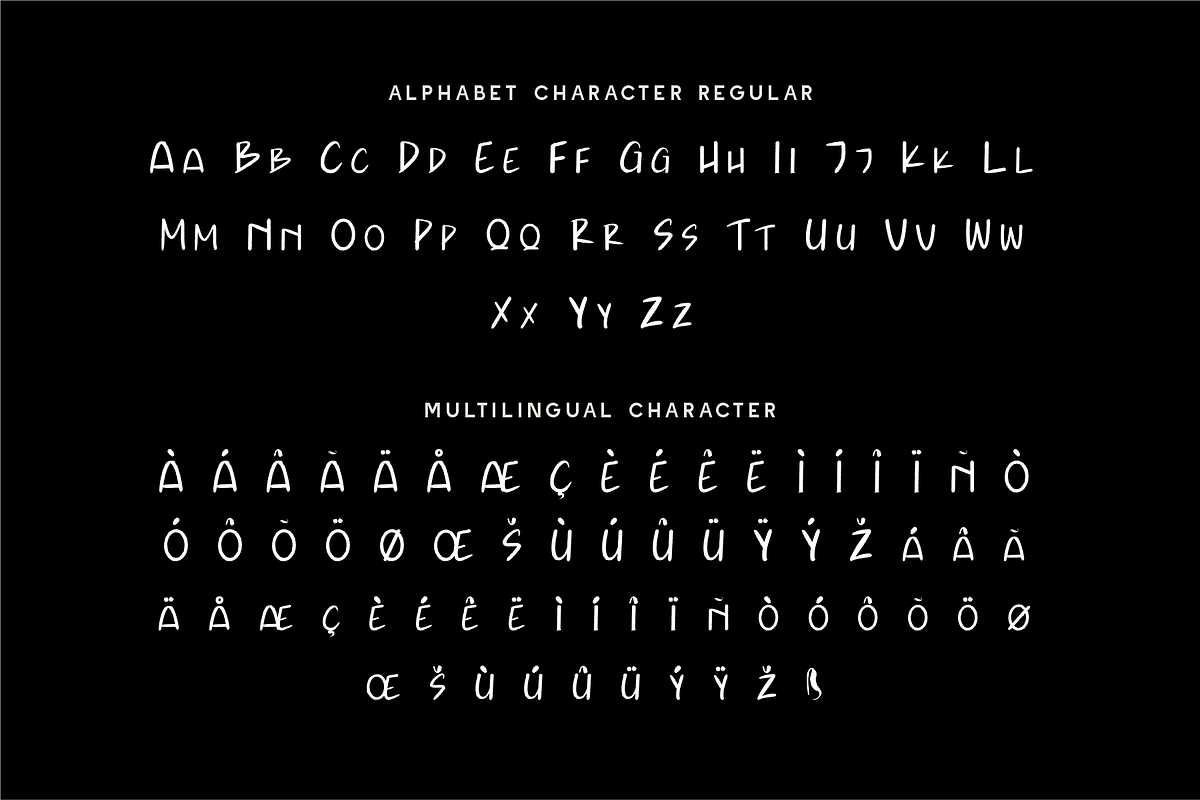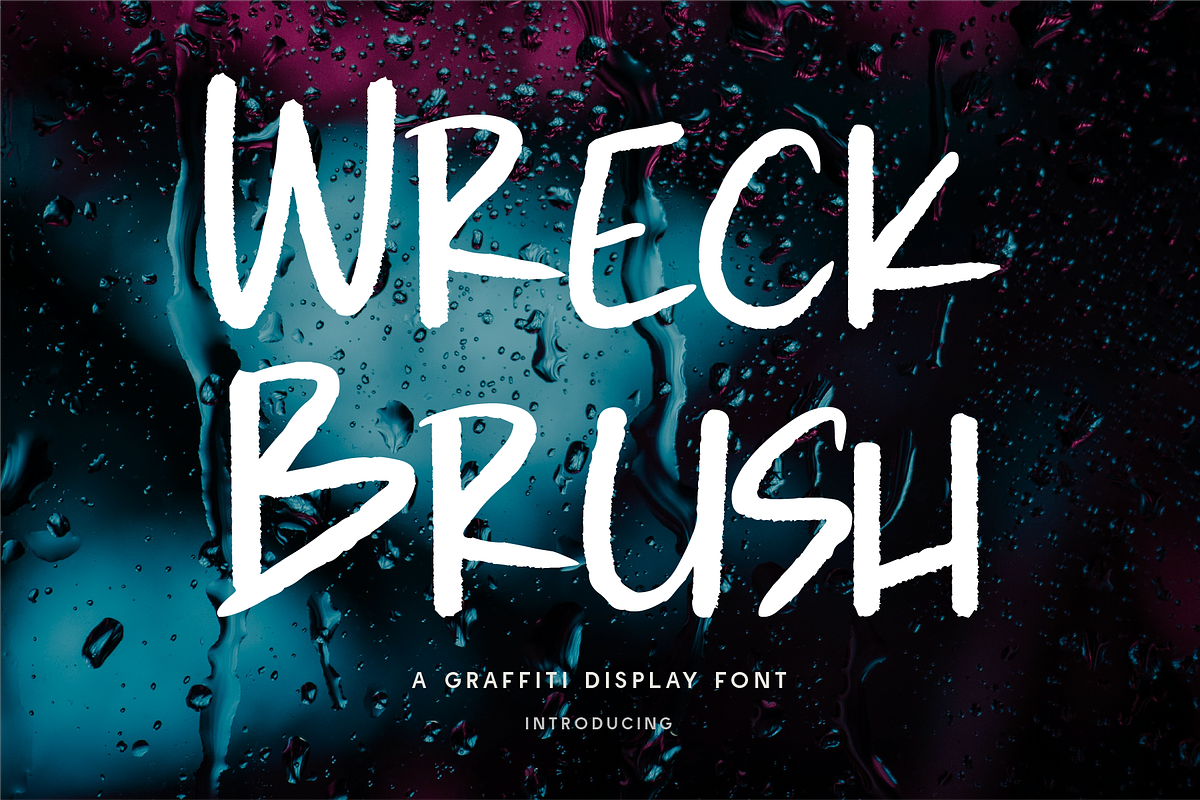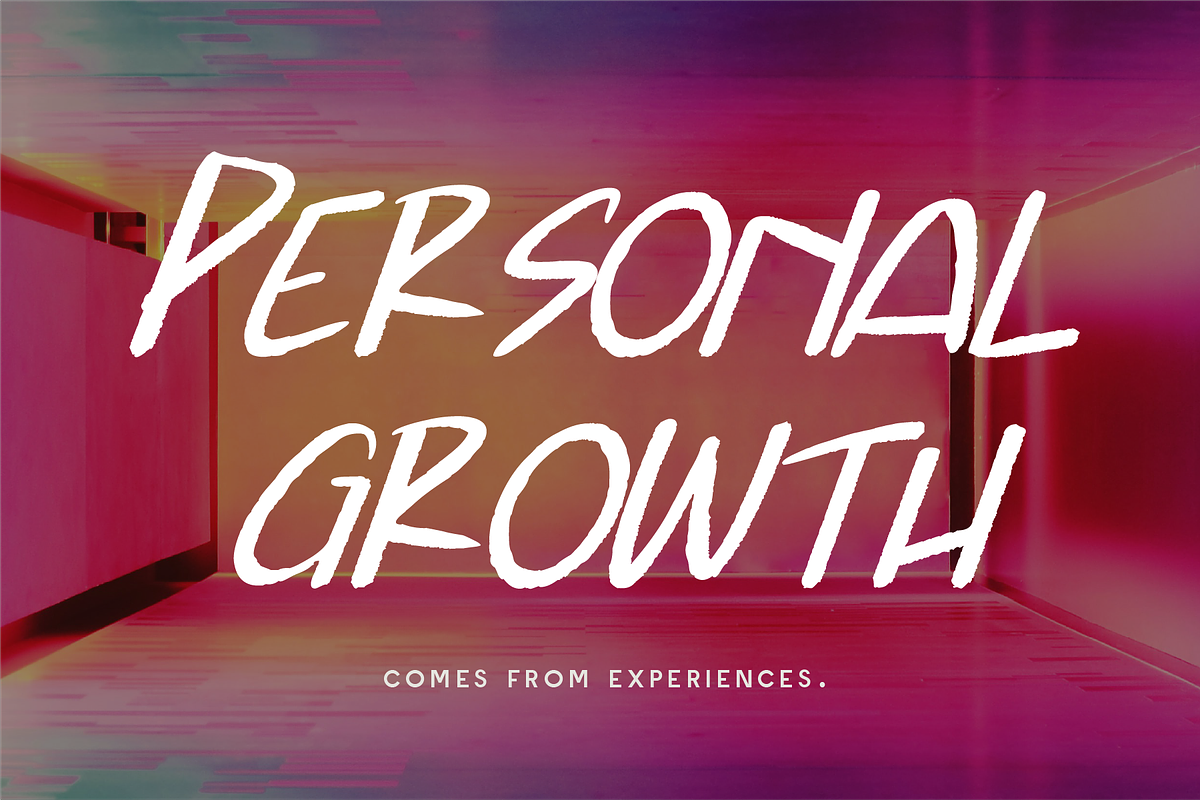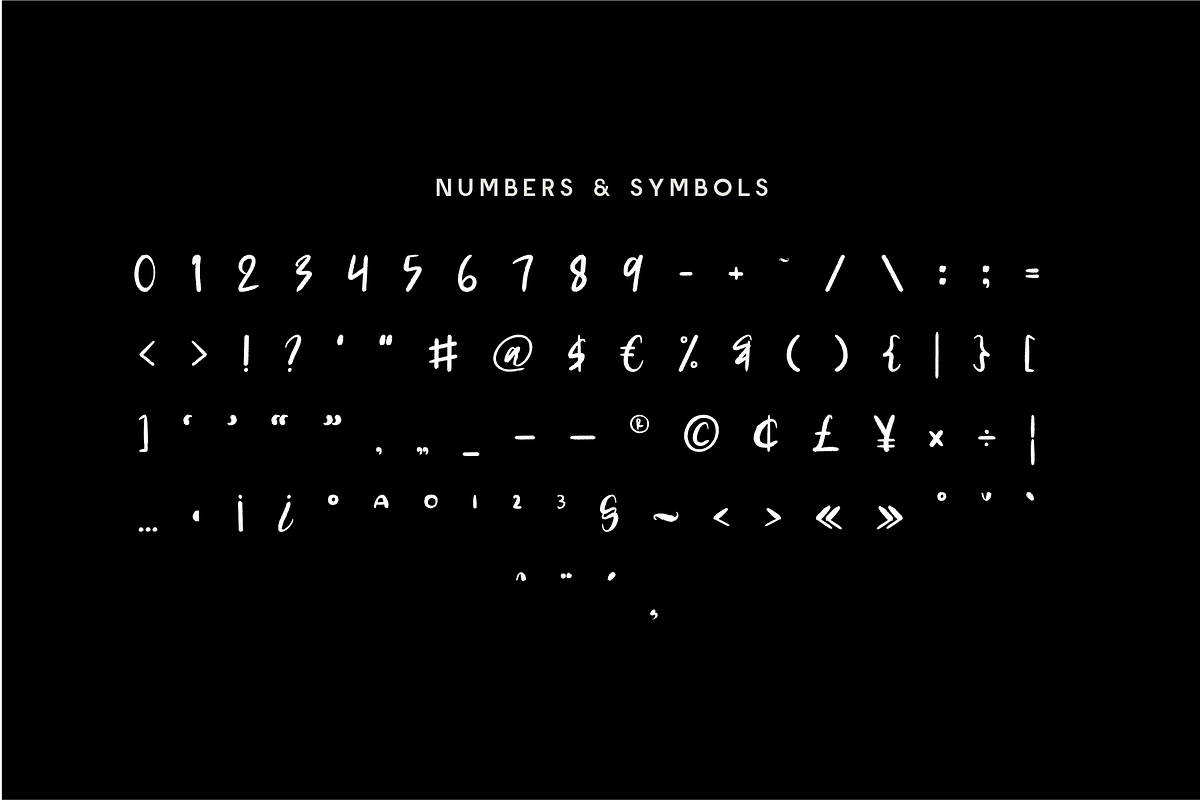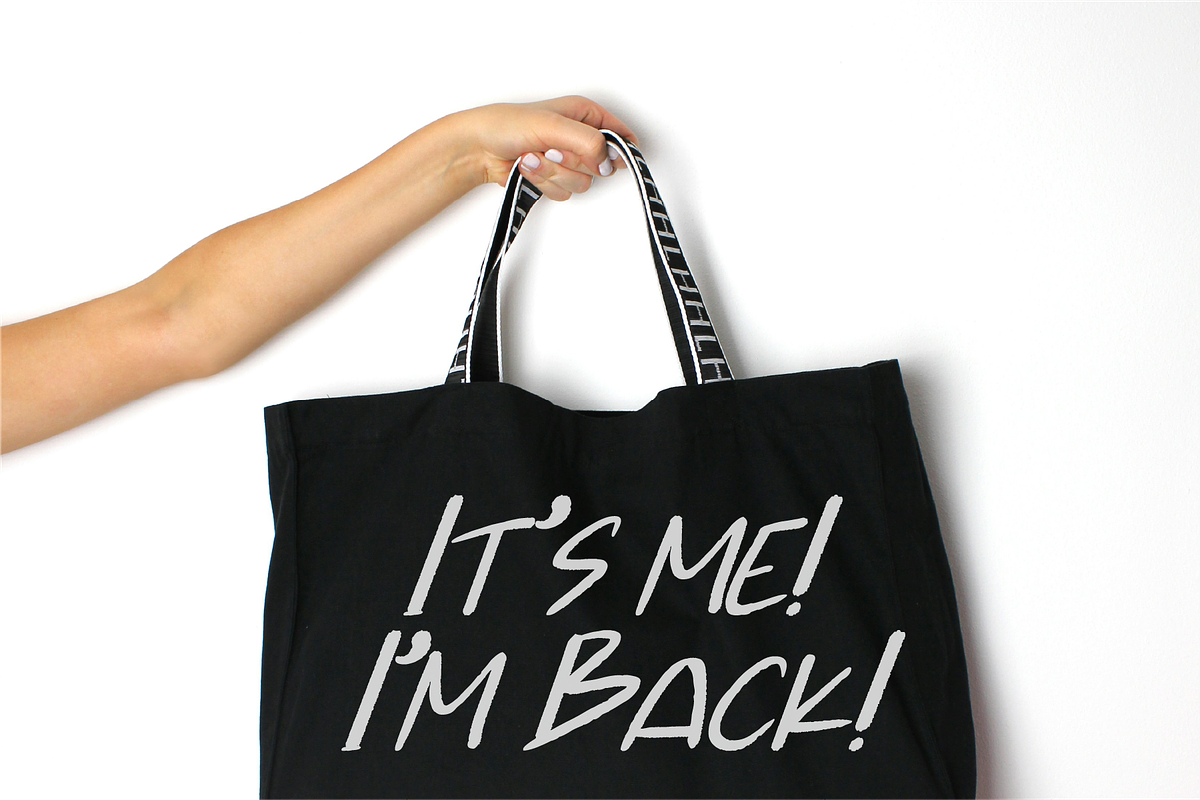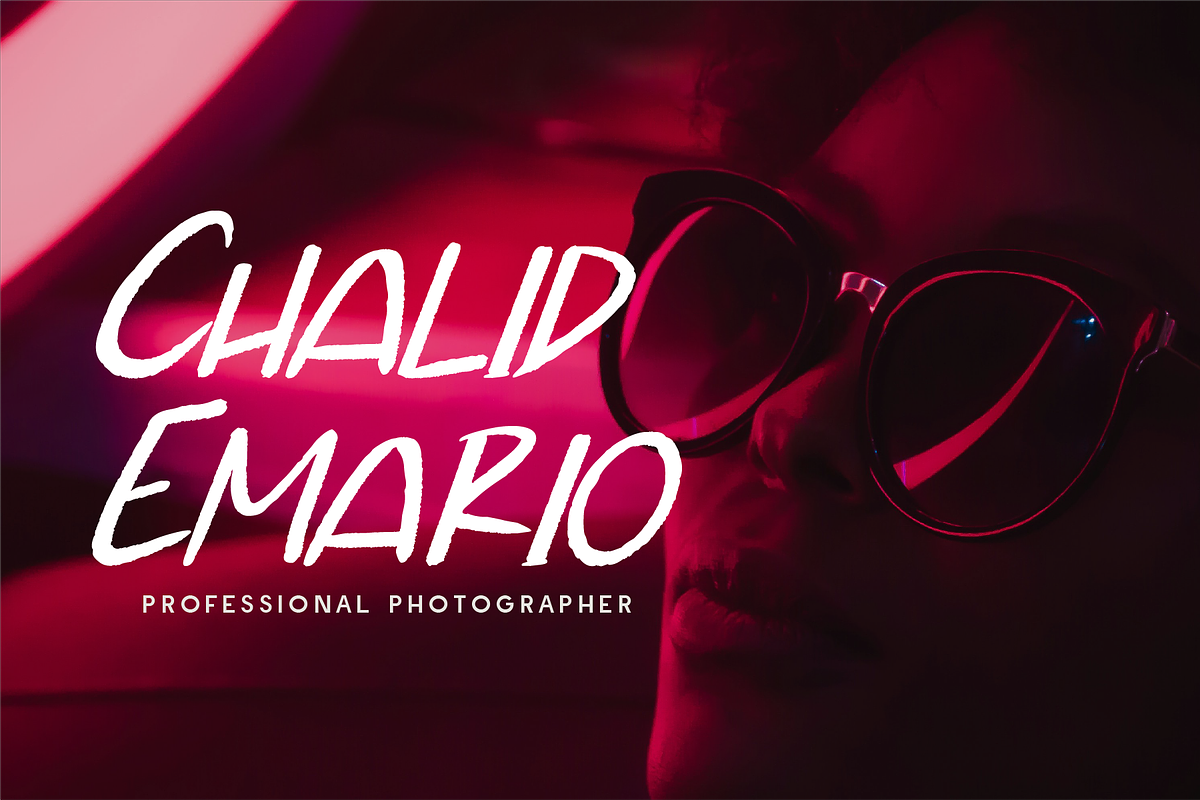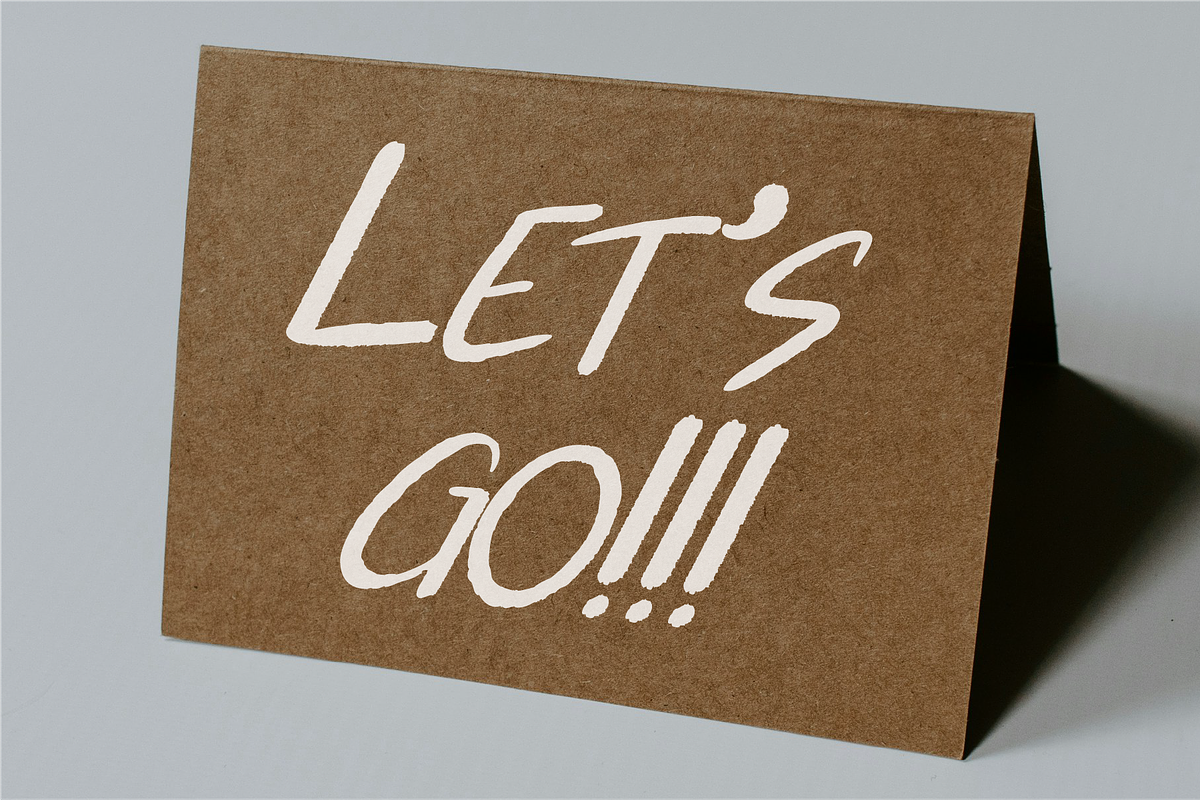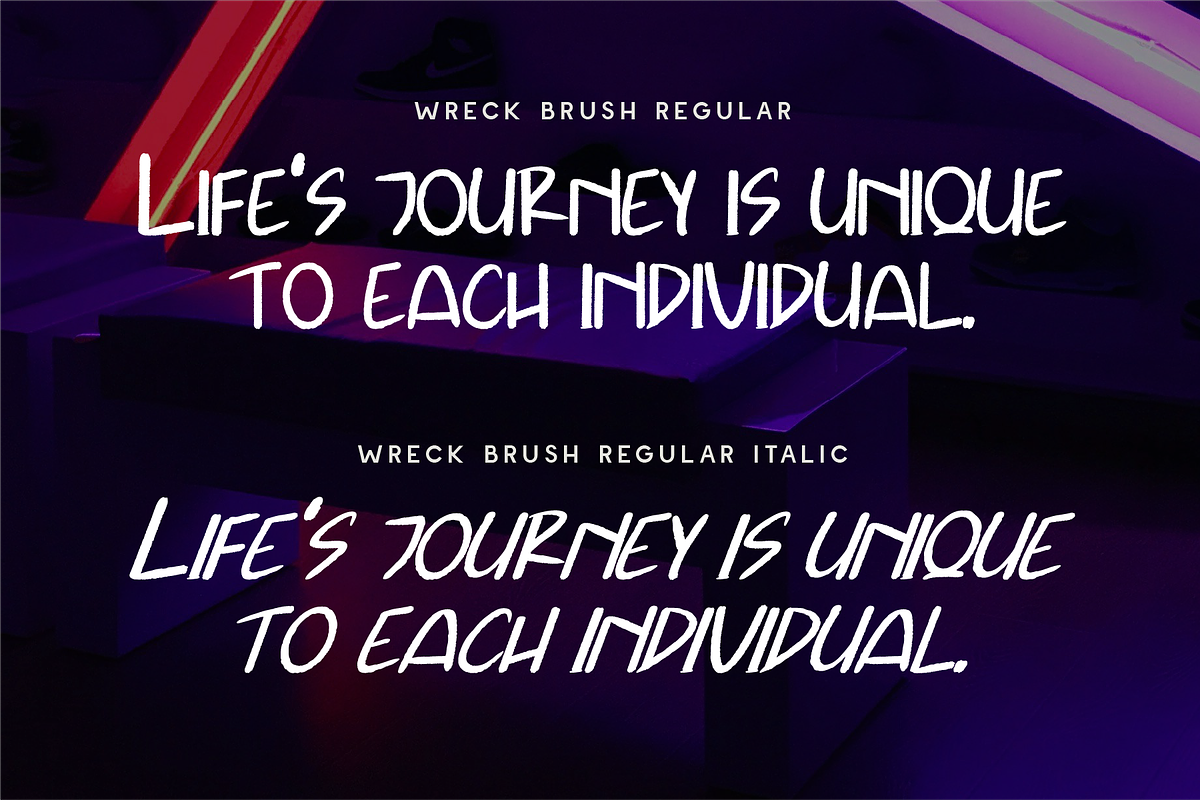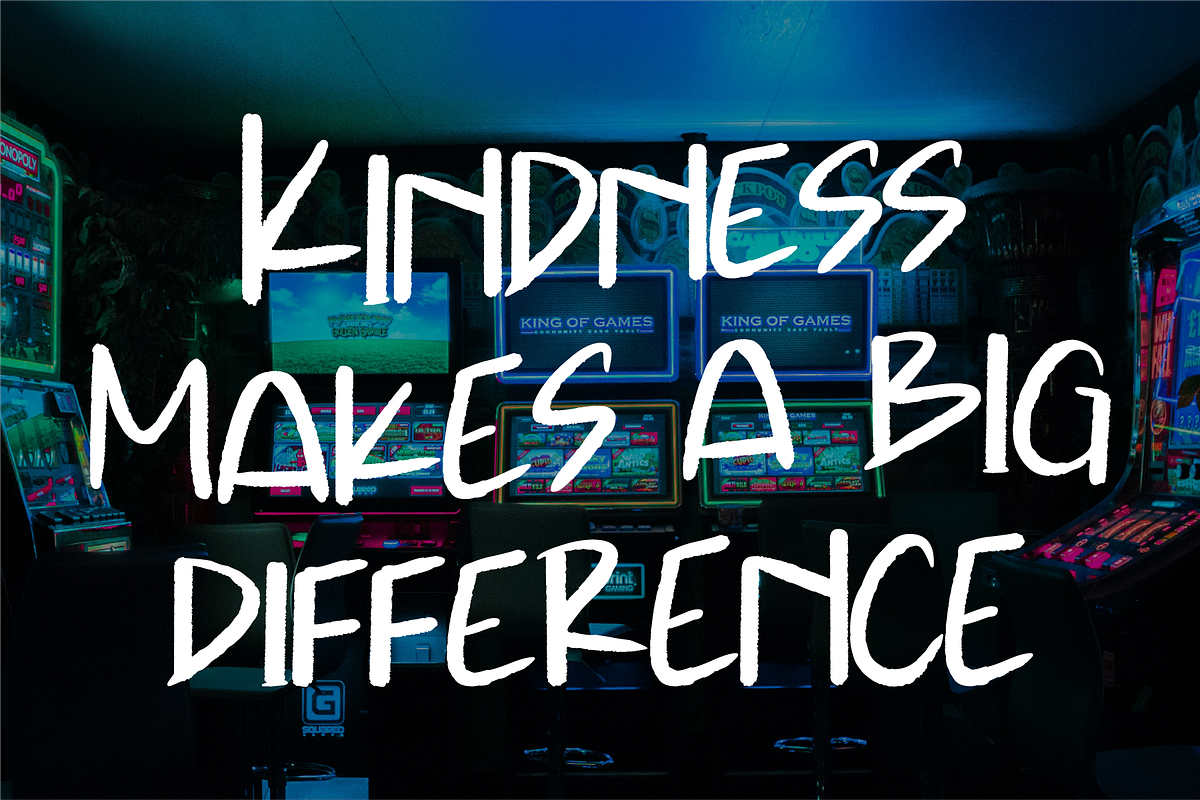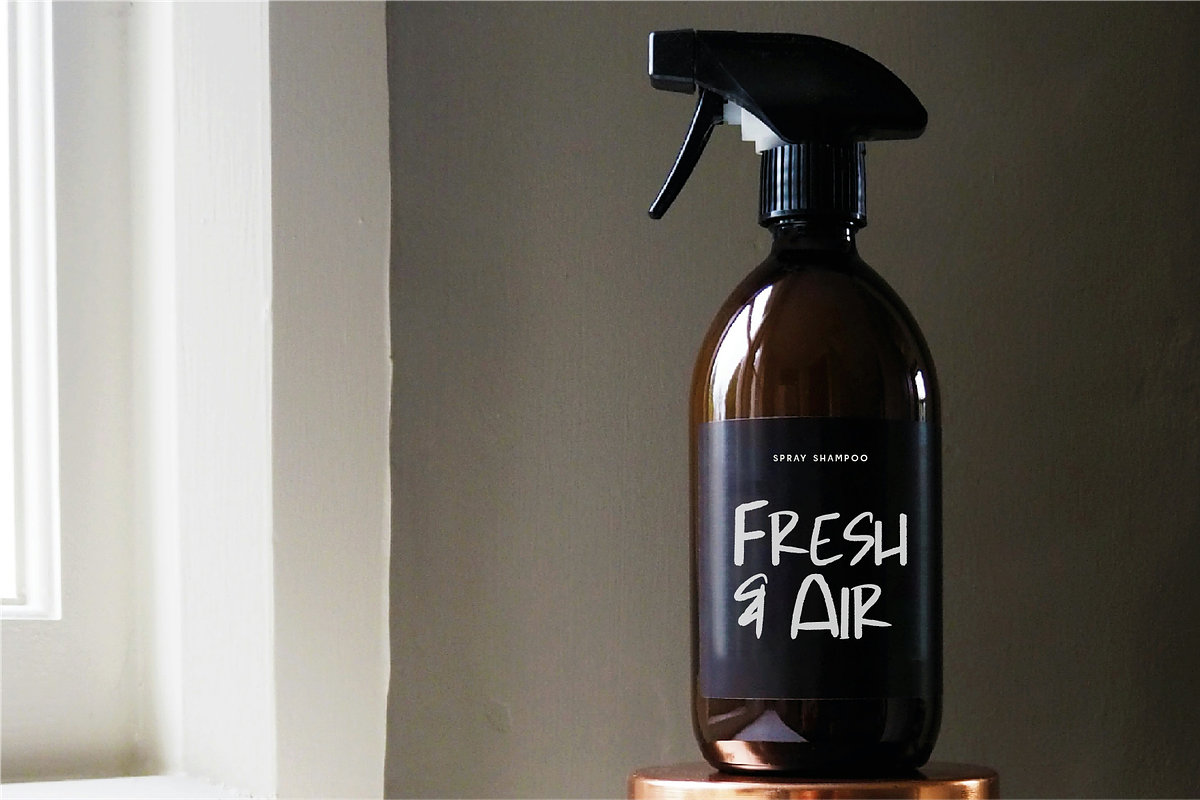
Wreck Brush - SVG Graffiti
Wreck Brush – A Bold & Edgy Graffiti Display Font Break the rules and make a statement with Wreck Brush, a graffiti-inspired display font that captures the raw energy of street art. With its bold brush strokes, rough textures, and dynamic flow, this typeface is perfect for designs that demand impact, attitude, and urban edge. Whether you're designing streetwear branding, music album covers, bold advertising, posters, or social media graphics, Wreck Brush delivers an unmistakable hand-painted, rebellious look. It’s the perfect blend of chaotic energy and artistic expression, designed for those who dare to be different.
Why Choose Wreck Brush?
🎨 Authentic Graffiti Style: Handcrafted brush strokes with an urban, street-art vibe.
🔥 Bold & Unapologetic: A font that commands attention with its raw energy.
🖌 Versatile & Expressive: Perfect for branding, posters, merchandise, and edgy designs.
🌍 Multilingual Support: Includes numbers, symbols, and extensive language compatibility. Let Wreck Brush add a dose of gritty attitude to your projects. Download now and make your mark with urban creativity and street-inspired boldness! 🎨🔥
- Standard Character A-Z, a-z, 0-9, Punctuation & symbols
- Regular and Italic